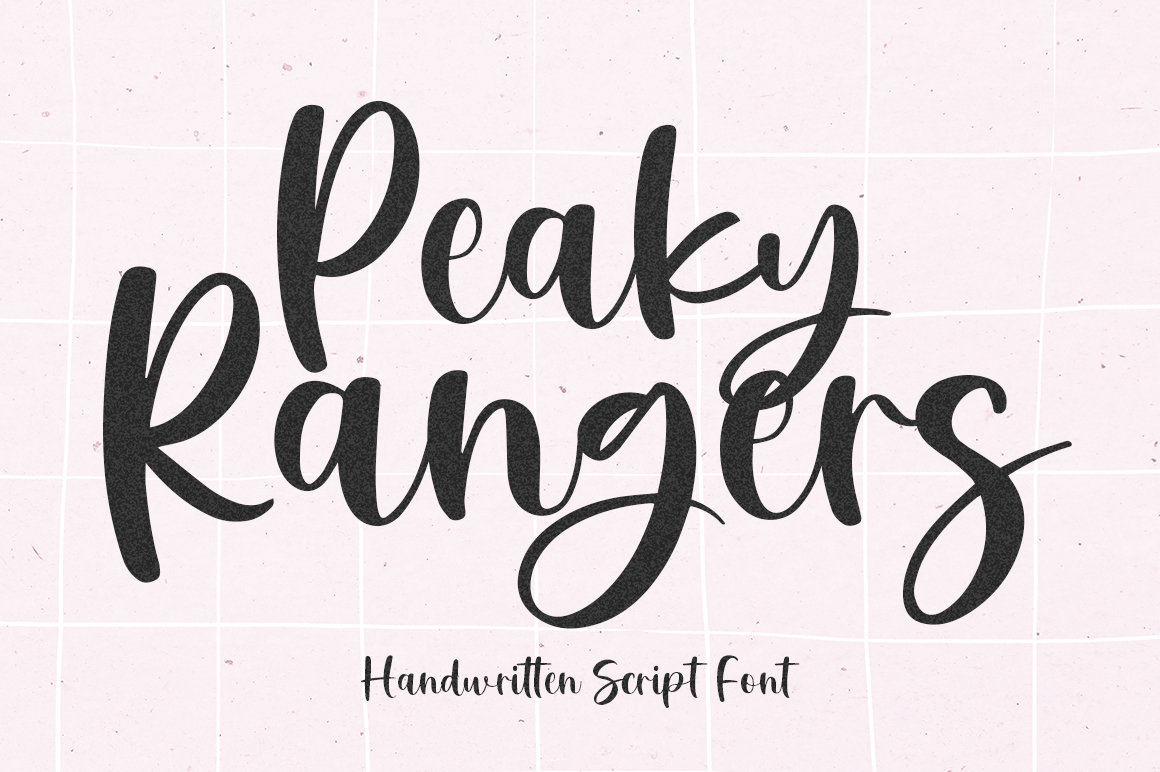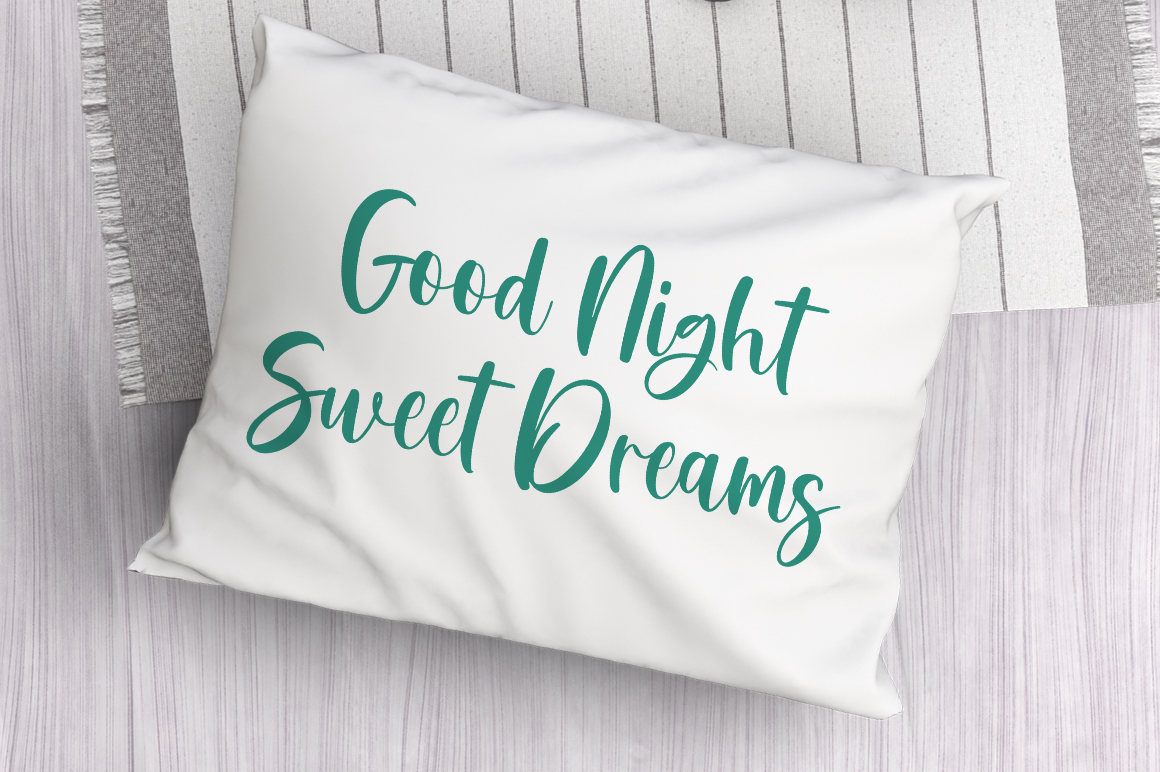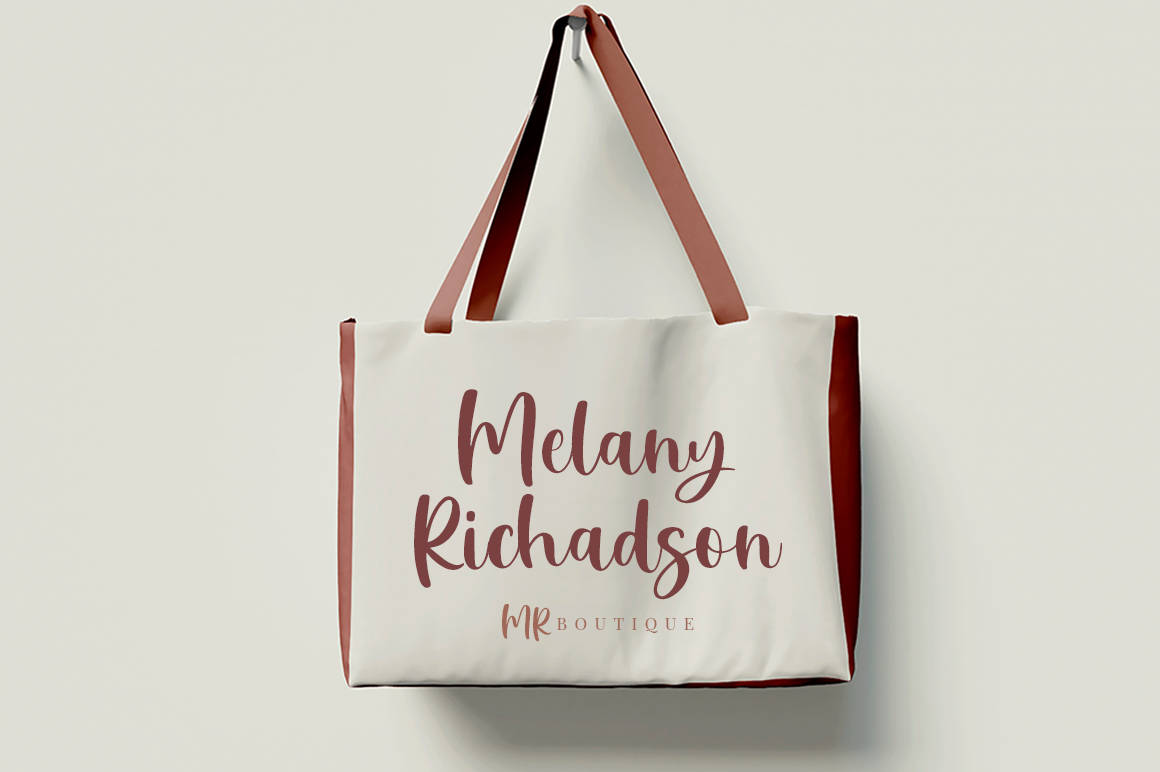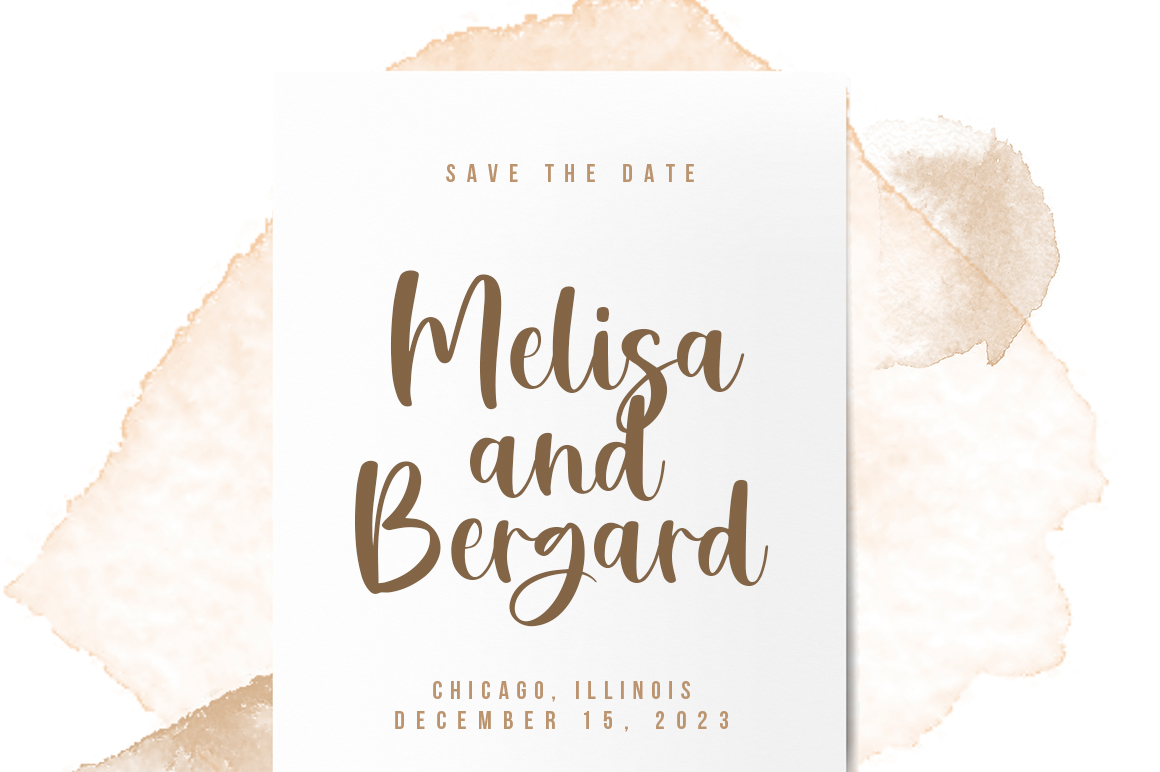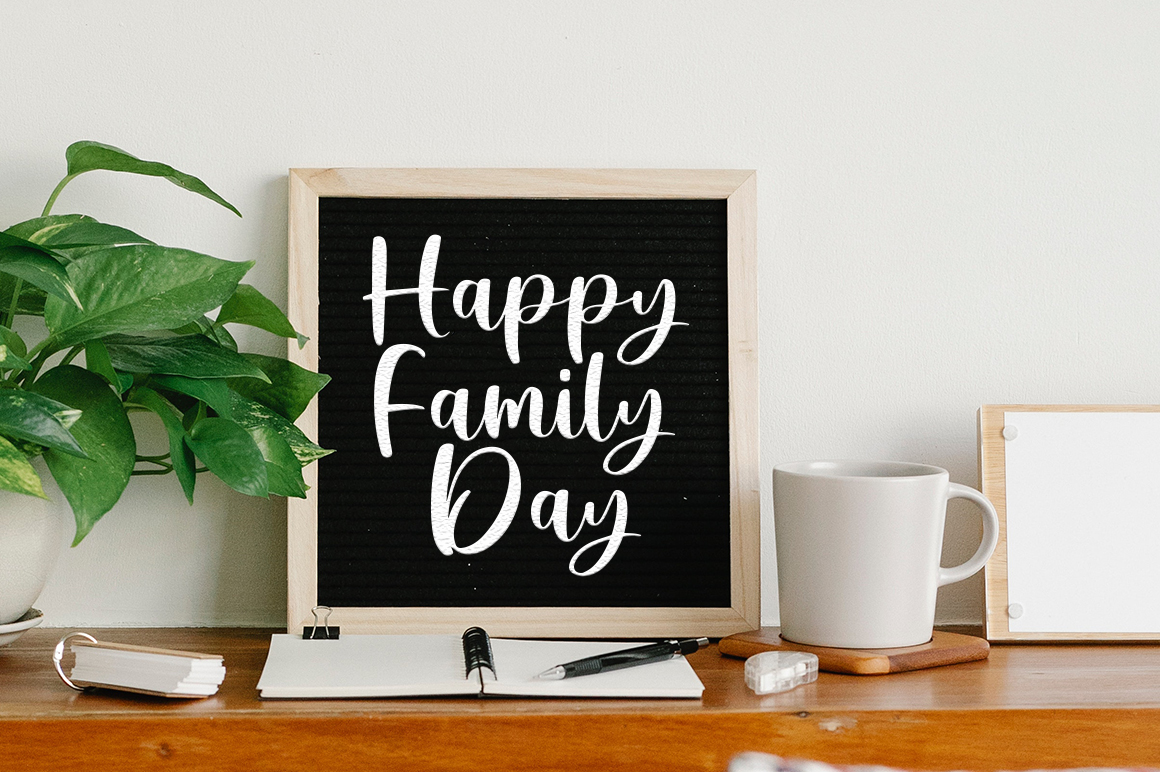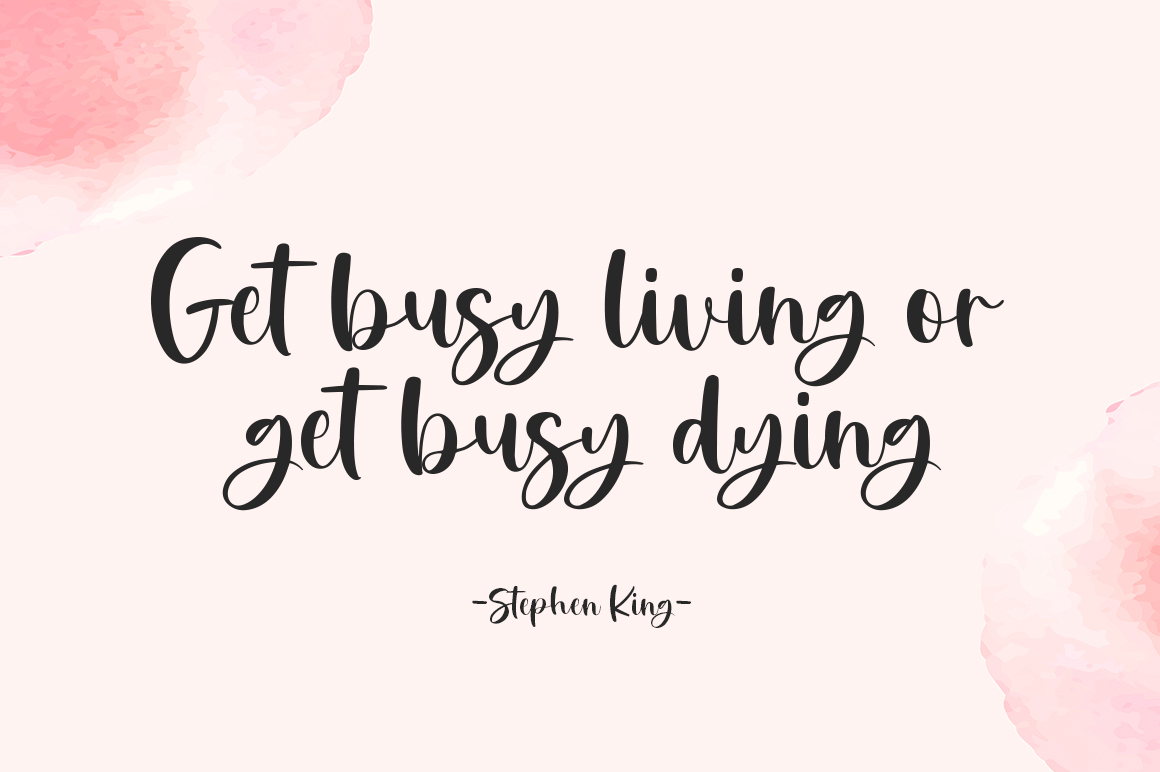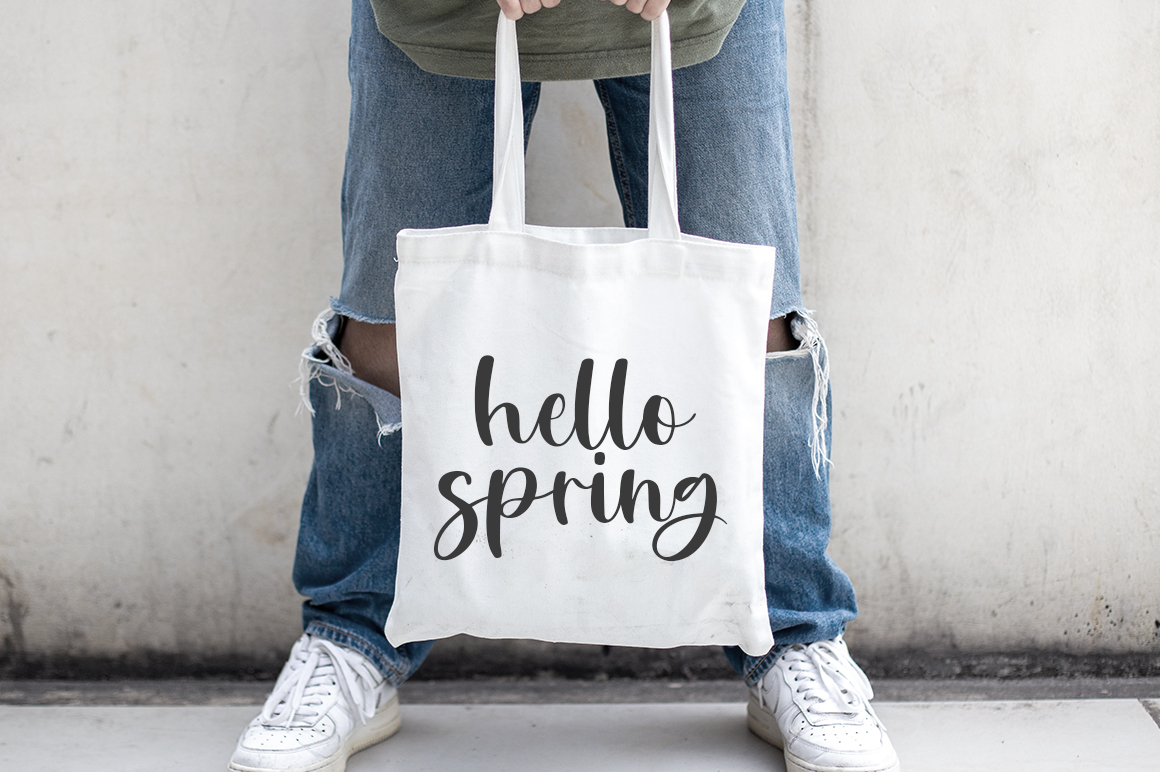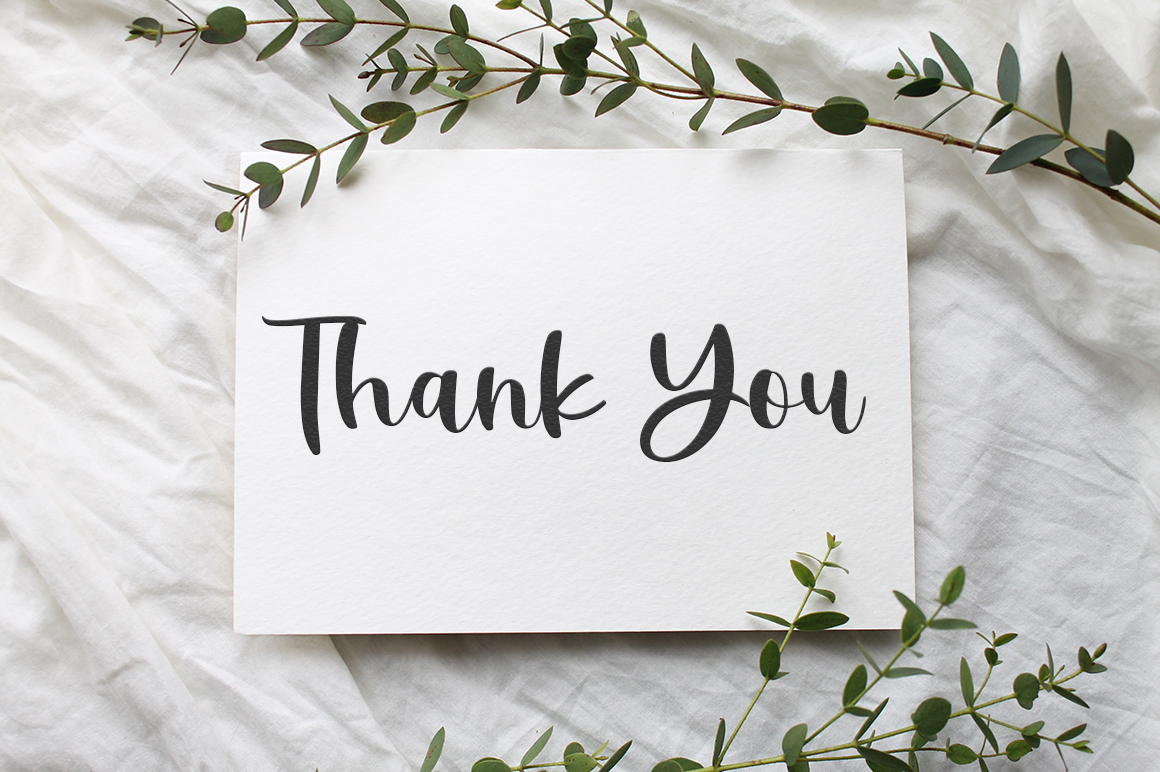
INTRODUCINGÂ “Peaky Rangers“.
Peaky Rangers is a handwritten script font in a modern calligraphy style, with a fun and modern look!
Peaky Rangers are perfect for elegant home designs, wedding decorations, invitations, cricut projects, crafts, svg files, shirts, quotes, greating cards, branding, prints, logos, and more!